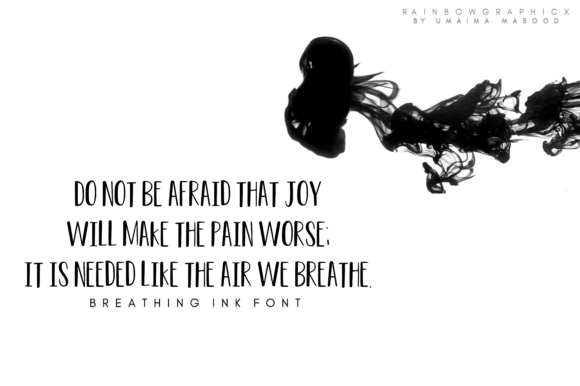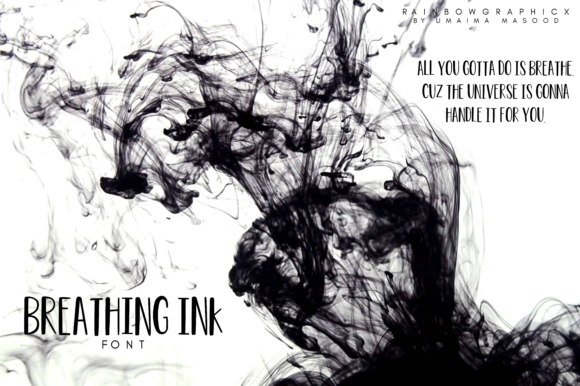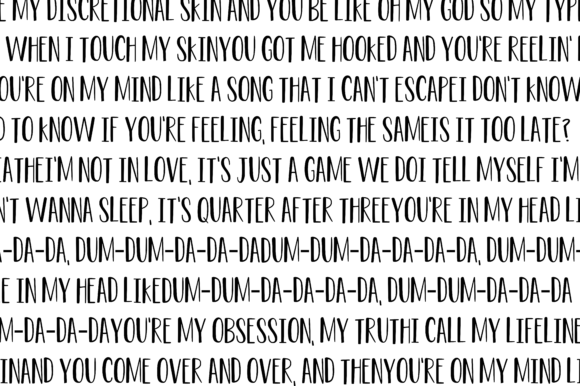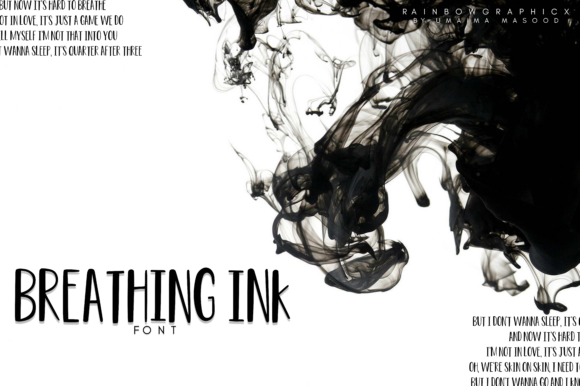
Introducing Breathing Ink Font: The Epitome of Modern Handwritten Typography
In the realm of typography, fonts play a pivotal role in conveying messages, evoking emotions, and creating a lasting impression. For designers, crafters, and anyone with a passion for creativity, the right font can elevate a project from mundane to magnificent. This is where Breathing Ink Font comes into play, a handwritten sans serif font that embodies modern simplicity and elegance.
The Essence of Breathing Ink Font
Breathing Ink is a carefully crafted handwritten sans serif font that strikes the perfect balance between modernity and approachability. Its clean lines, subtle curves, and even spacing create a harmonious visual experience, making it an ideal choice for a wide range of projects. Whether you’re working on a branding campaign, a digital platform, or a crafting project, Breathing Ink Font brings a touch of sophistication and freshness.
Key Features of Breathing Ink Font
- Handwritten Sans Serif: Breathing Ink boasts a unique handwritten quality without the fuss of serifs, making it versatile and highly legible across various mediums.
- Modern Feel: Its contemporary design ensures that your projects stand out with a modern aesthetic that appeals to a wide audience.
- Simplicity: The font’s simplicity is its strength, allowing for clear communication while adding a touch of elegance to your designs.
- Versatility: Suitable for a myriad of applications, from digital interfaces to print materials, Breathing Ink Font adapts seamlessly.
Applications of Breathing Ink Font
The versatility of Breathing Ink Font makes it a valuable asset for various creative and professional projects. Here are some of the areas where this font truly shines:
- Branding and Logotypes: Create memorable brand identities with a font that exudes modernity and approachability.
- Web and Mobile Interfaces: Enhance user experience with a clean, readable font that works well across different devices and screen sizes.
- Marketing Materials: From brochures to flyers, Breathing Ink Font adds a professional yet friendly touch to your marketing collateral.
- Crafting and DIY Projects: Add a personal and modern flair to your crafting projects, such as handmade cards, journals, and more.
Tips for Using Breathing Ink Font
Breathing Ink Font is more than just a typeface; it’s a tool for creativity, a means to convey your message with clarity and style. Its modern feel, simplicity, and versatility make it an excellent addition to any designer’s or crafter’s toolkit. Whether you’re aiming to create a stunning brand identity, a user-friendly interface, or a beautiful crafting project, Breathing Ink Font is sure to inspire and elevate your work.